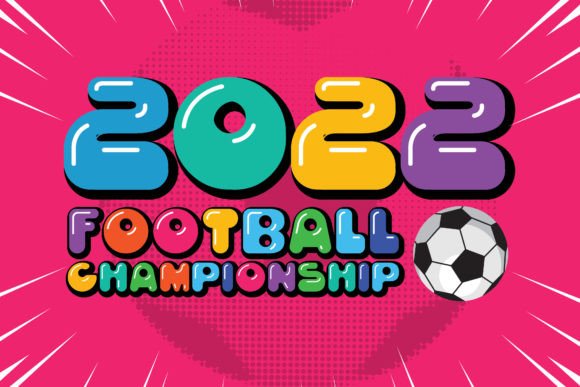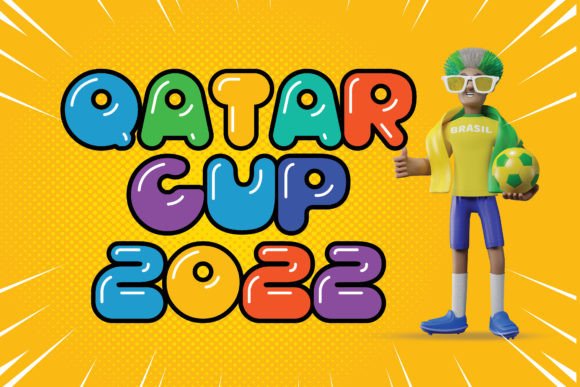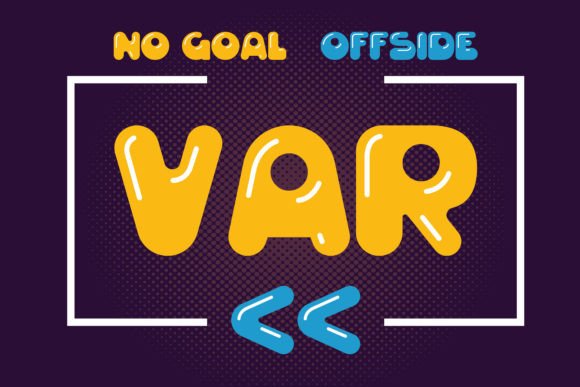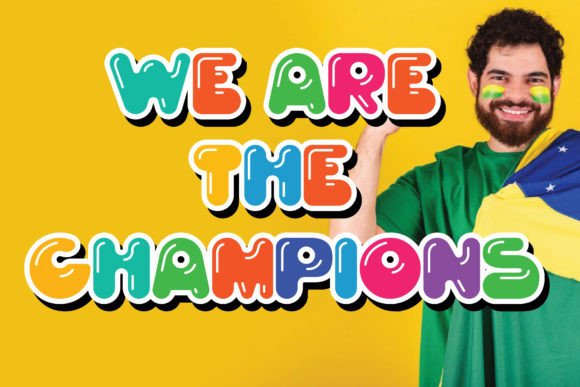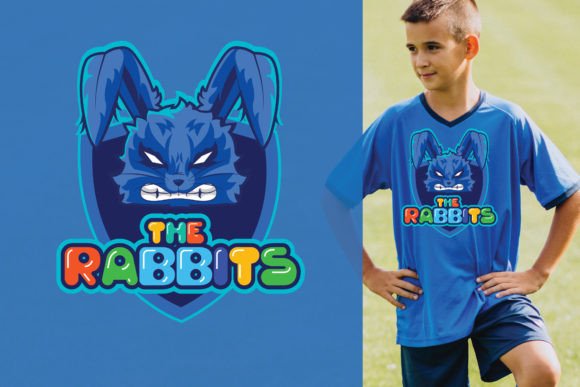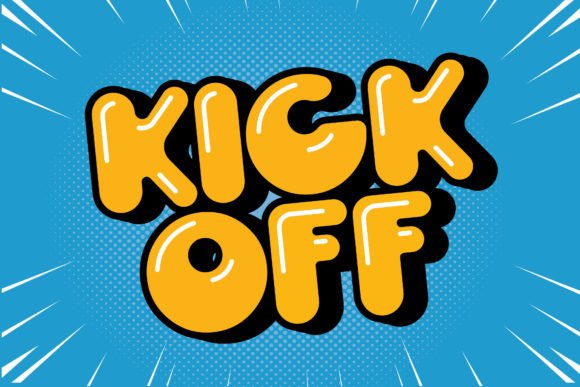
Introducing Goal Font: The Ultimate Cartoon-Style Display Font for Bold Designs
Are you looking for a font that packs a punch and grabs attention? Look no further than Goal Font, a vibrant and playful cartoon-style display font that’s perfect for designers and crafters who want to add a touch of youthfulness and courage to their projects. In this article, we’ll dive into the features and benefits of Goal Font, and explore how you can use it to take your designs to the next level.
What is Goal Font?
Goal Font is a color font, specifically designed as an Opentype-SVG file, which means it’s a cutting-edge font format that allows for colorful and intricate designs. This font is perfect for creating eye-catching designs that demand attention, from comic book-style art to online games, cards, love shirts, posters, movie titles, and social media posts.
Key Features of Goal Font
- Cartoon-style display font: Goal Font boasts a fun, playful, and energetic design that’s sure to capture the essence of your project.
- Color font (Opentype-SVG): This font format allows for vibrant colors and detailed designs, making it perfect for creating stunning visuals.
Use Cases for Goal Font
Goal Font is an incredibly versatile font that can be used in a wide range of design projects, including:
- Comic book-style art: Add a bold and playful touch to your comic book-style art with Goal Font.
- Online games: Create eye-catching game titles, buttons, and UI elements with Goal Font.
- Cards and invitations: Make your cards and invitations stand out with Goal Font’s colorful and playful design.
- Love shirts and apparel: Design stunning love shirts and apparel with Goal Font’s bold and youthful style.
- Posters and movie titles: Create striking posters and movie titles that grab attention with Goal Font.
- Social media posts: Make your social media posts stand out with Goal Font’s vibrant and energetic design.
Tips for Using Goal Font
To get the most out of Goal Font, here are some tips to keep in mind:
- Experiment with colors: Goal Font’s color format allows for endless possibilities, so don’t be afraid to experiment with different colors and combinations.
- Play with font sizes: Goal Font looks great in large and small sizes, so experiment with different font sizes to find the perfect fit for your design.
- Combine with other fonts: Goal Font pairs well with other fonts, so try combining it with other fonts to create a unique and striking design.